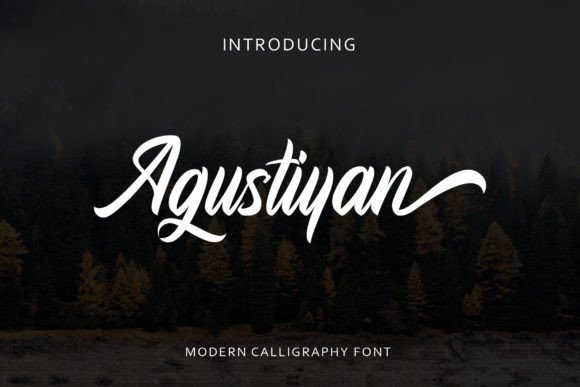
Step into the enchanting realm of calligraphy with Agustiyan, a script font that radiates charm and elegance. Its delicate strokes and fluid curves evoke a sense of artistry and sophistication, adding a touch of timeless beauty to your creative endeavors.
With Agustiyan, you can effortlessly craft wedding invitations that exude romance and grace. Imagine your vows and heartfelt messages penned in this exquisite script, leaving a lasting impression on the hearts of your loved ones. Thank-you cards adorned with Agustiyan's elegant characters convey your gratitude with a personal touch.
Design captivating quotes and greeting cards that resonate with your audience. Agustiyan's graceful lines lend a heartfelt charm to your messages, making them cherished keepsakes that speak volumes. This versatile font also shines in logo design, infusing your brand identity with a classic and memorable touch.
Envision your business cards adorned with Agustiyan's sophisticated script, leaving an indelible mark on potential clients. Its refined aesthetics add a touch of professionalism and elegance to your branding materials, setting you apart from the ordinary.
Agustiyan's versatility extends to a myriad of design projects, from social media posts to marketing campaigns. Its timeless charm captivates audiences, leaving a lasting impact that resonates with your brand's message. Unleash your creativity and explore endless possibilities with this exquisite font.
Delve into the world of Agustiyan and discover a symphony of aesthetics and elegance. Its captivating characters elevate your designs, transforming them into masterpieces of visual artistry. Experience the allure of handwritten elegance and let your creativity soar with Agustiyan.